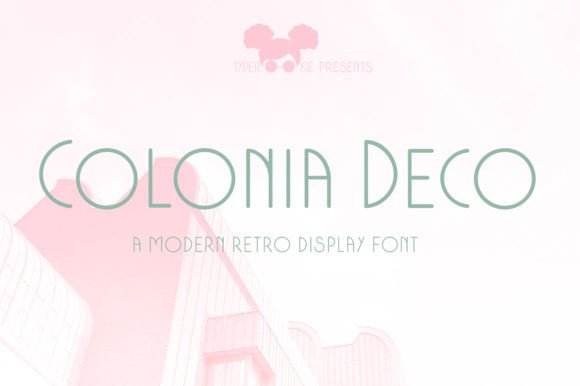
Colonia Deco Sans Serif Font
Colonia Deco Sans Serif Font distinctive with its pleasant look and extremely modern smooth curves and round corners. Made from font designer named typerookie. This is an elegant Sans Serif typeface with a touch of vintage. It’s a perfect choice for designs with a luxurious look & feel!
Typical areas of application for Colonia Deco are blog posts, books, documents and editorial design, as well as personalized mailings and the entire spectrum of below-the-line marketing: ambient media, direct marketing, lotteries, flyers.